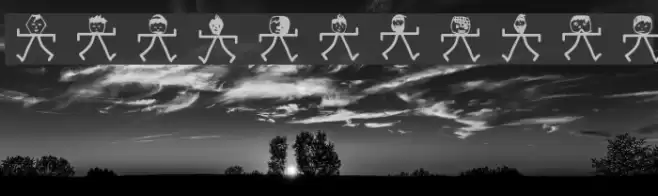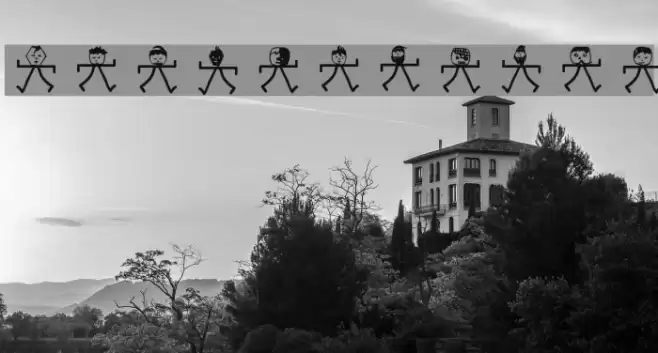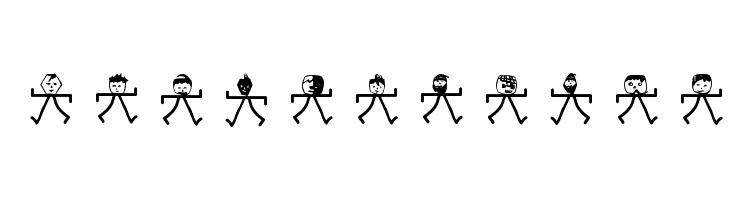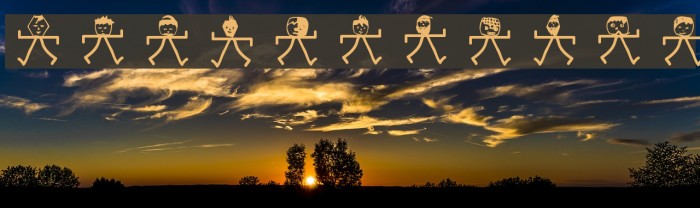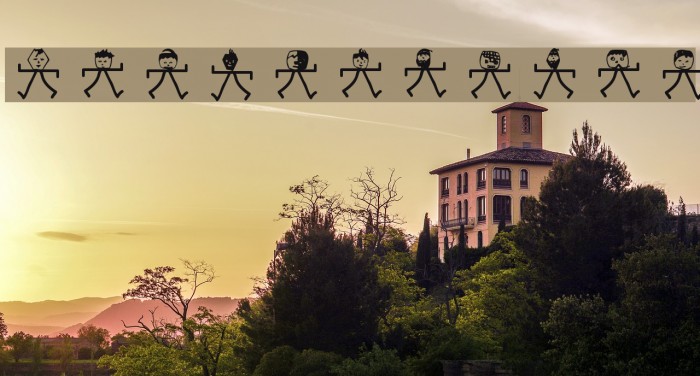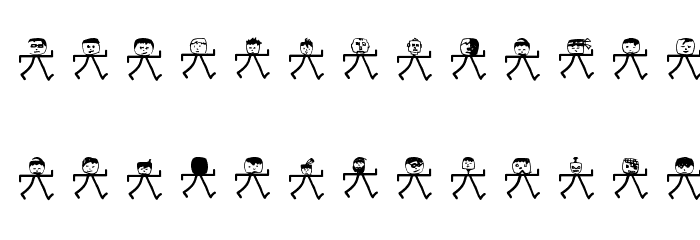
MenFiftyTwo Font
MenFiftyTwo Description
This is a decorative font featuring whimsical stick figure characters, each with a unique head design. The figures are simplistic, with straight lines forming the body and limbs, while the heads vary in style, adding a playful and humorous touch. The font is highly creative and visually engaging, making it ideal for projects that require a fun and lighthearted aesthetic. Each character maintains a consistent structure, ensuring readability while offering a distinct personality through the head designs.
A playful decorative font with unique stick figure characters from Uncategorized fonts.
- Proposed Projects: Ideal for children's books, comic strips, playful posters, and creative invitations.
- Overall Style: Whimsical and playful
- Use Case: Logos, Posters, Creative projects